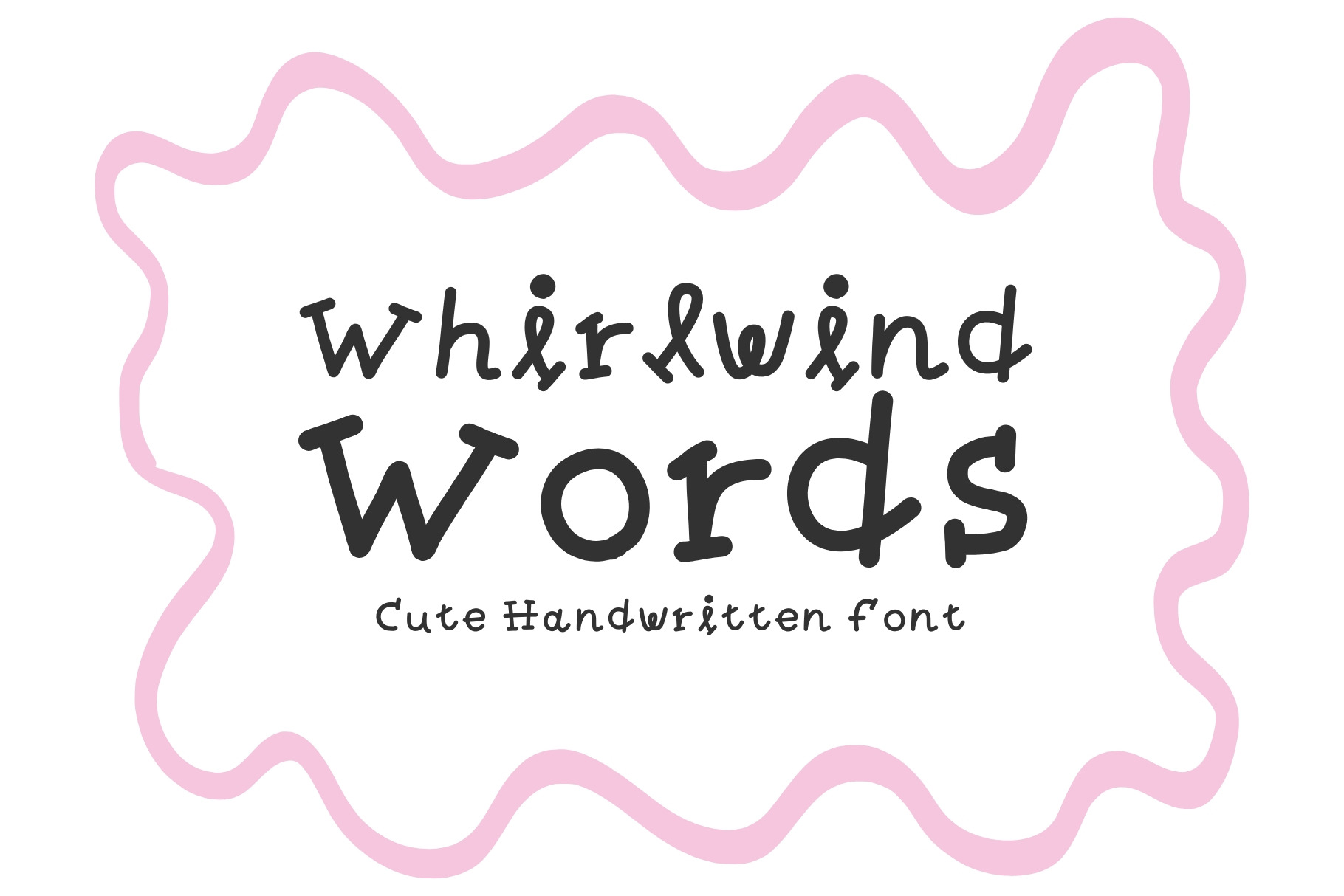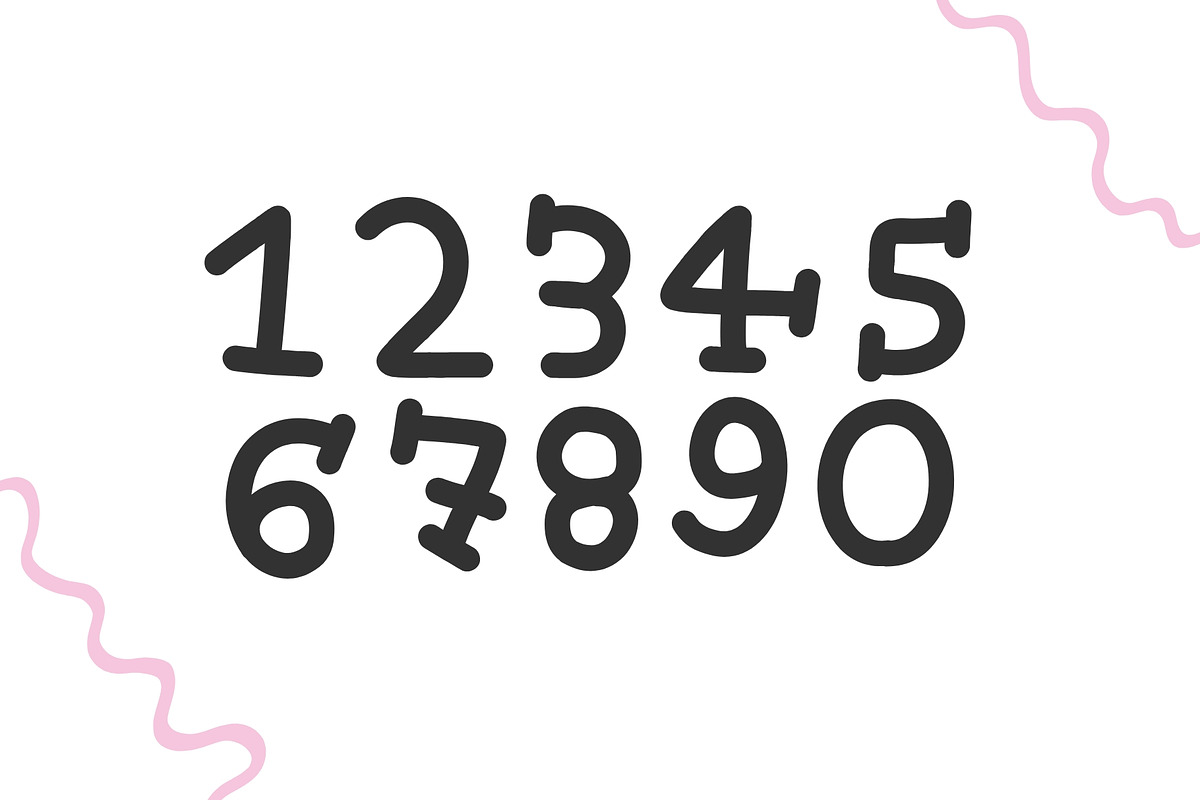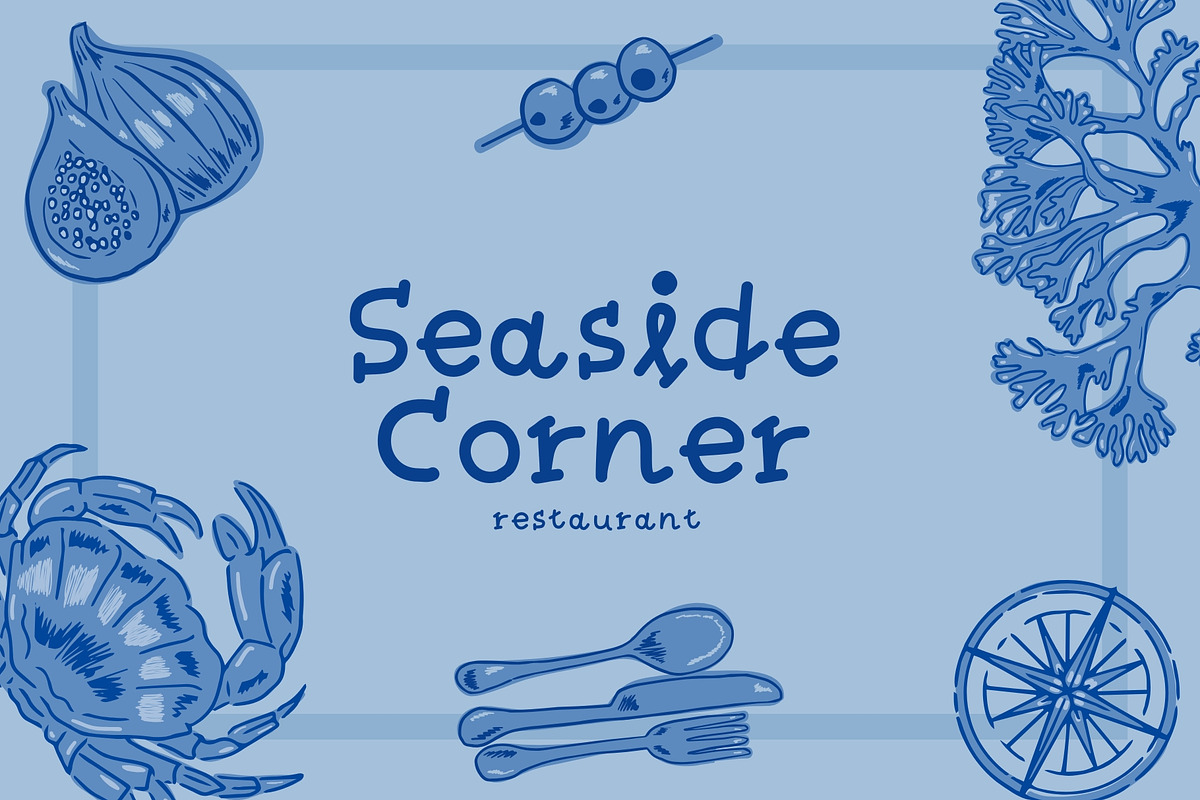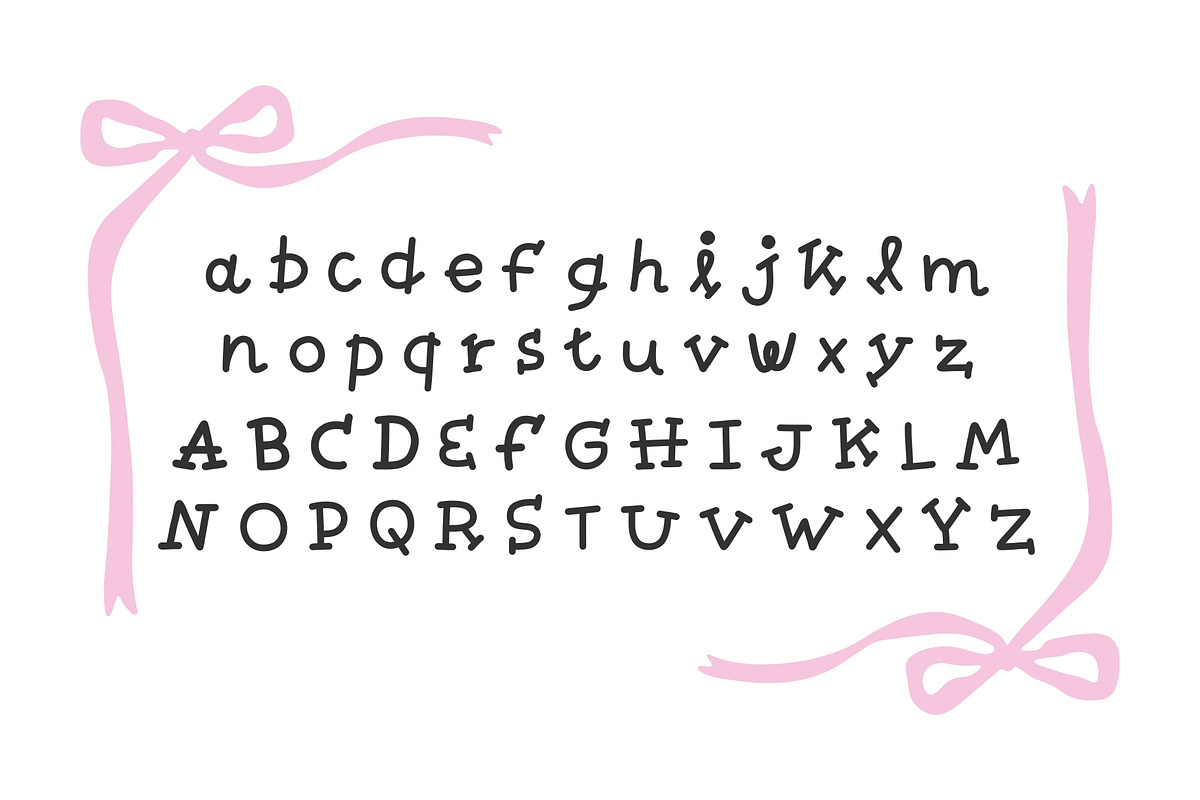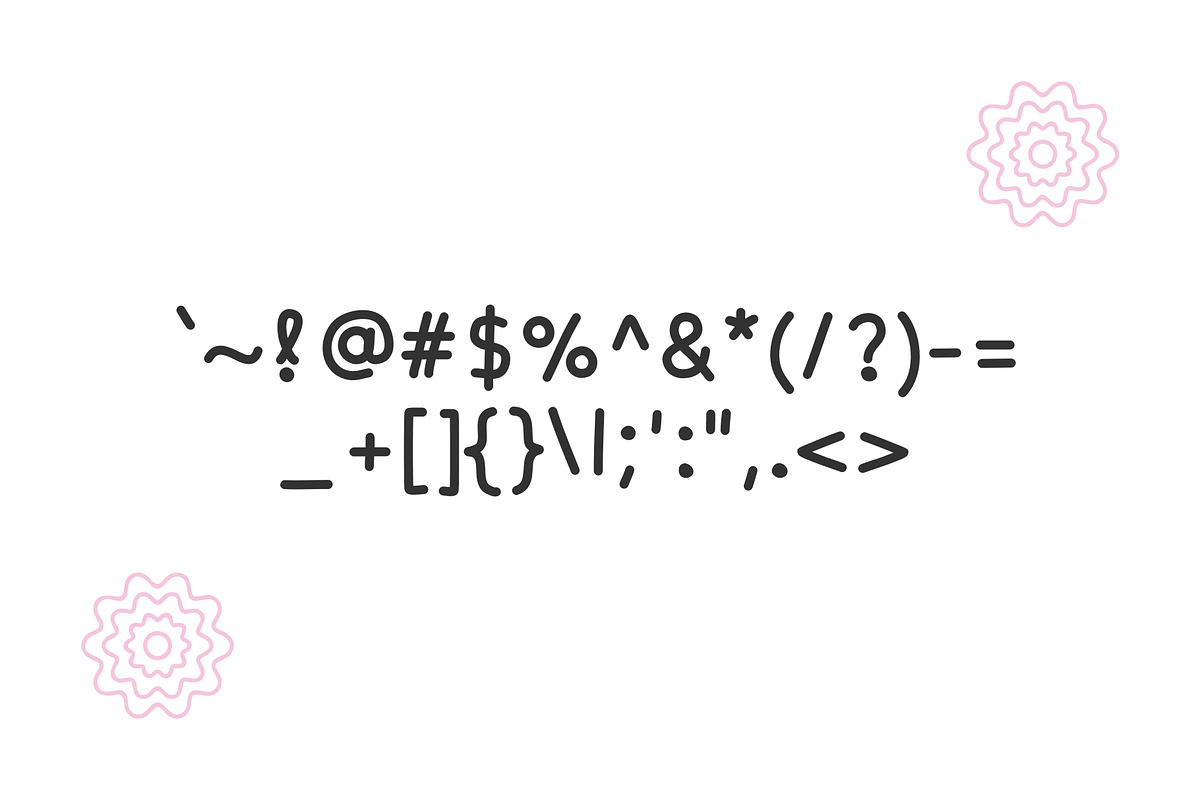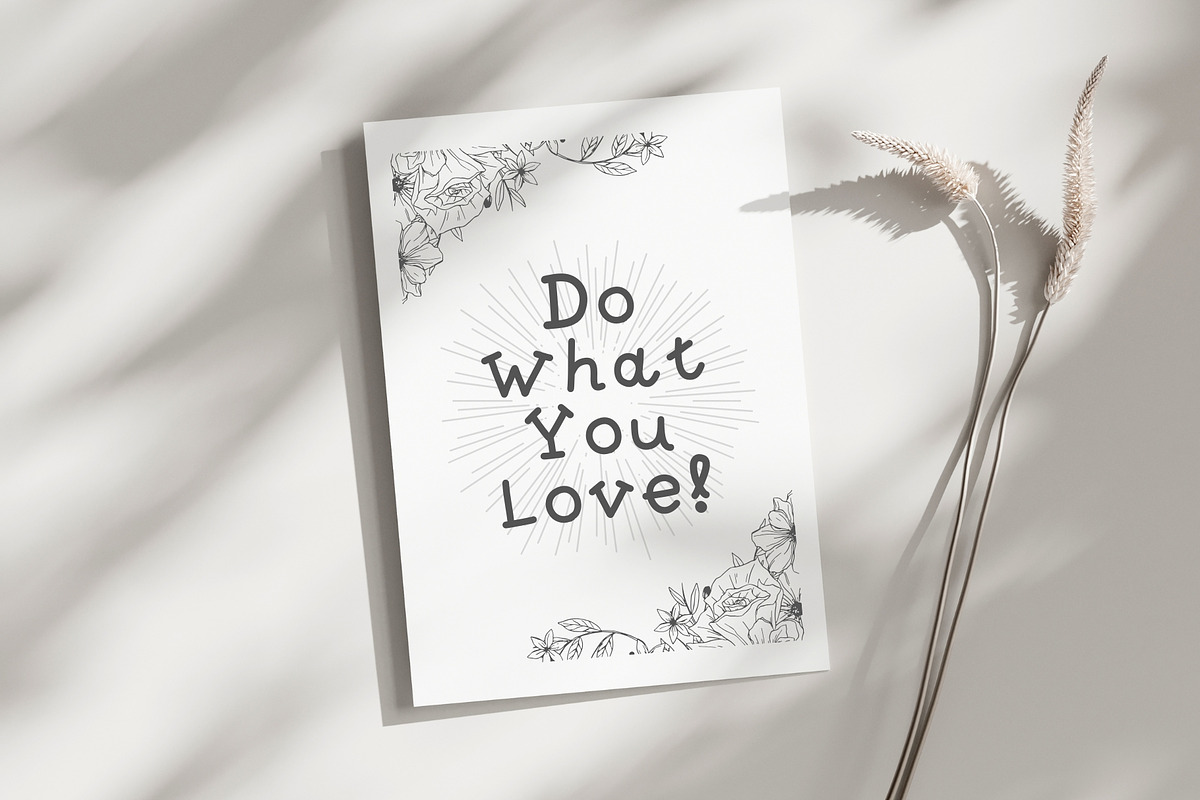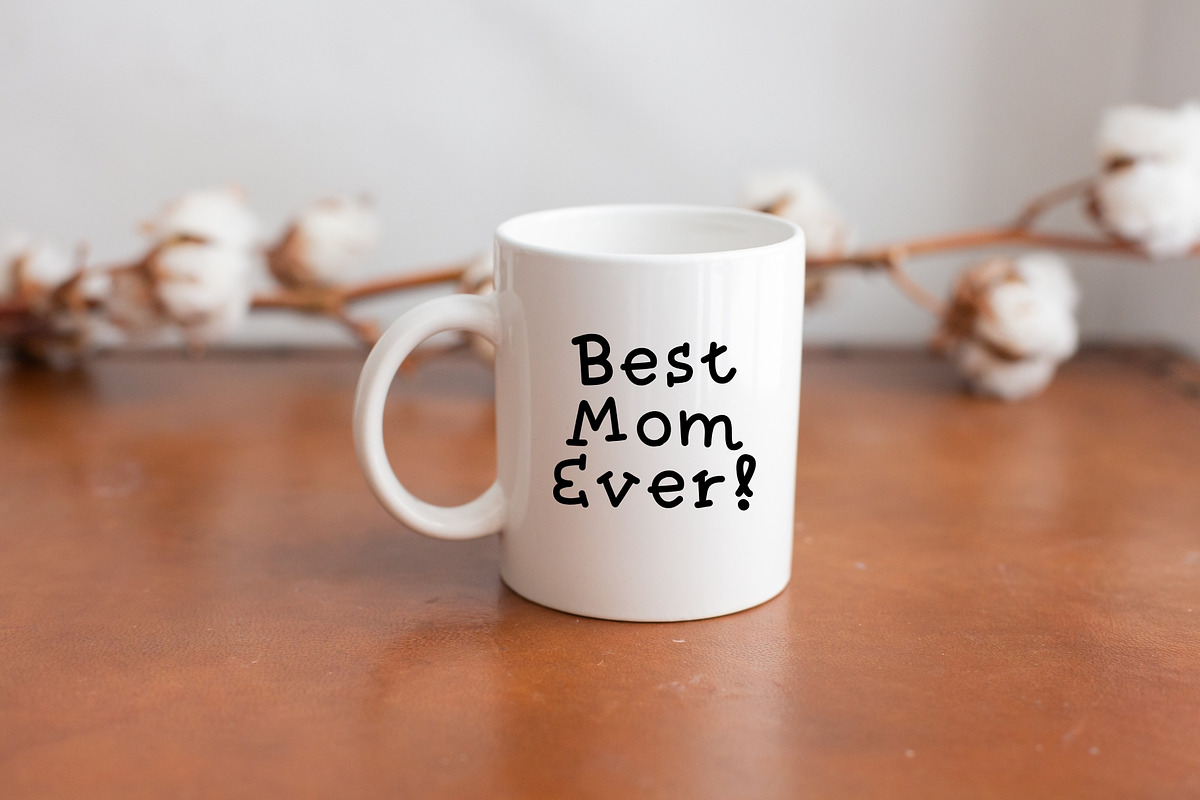
Whirlwind Words - Handwritten Font
Let your creativity take flight with Whirlwind Words, a charming handwritten serif that blends quirkiness with elegance. Each letter carries a delightful swirl of personality, making your designs feel warm, lively, and effortlessly stylish.
Whether you're crafting eye-catching branding, whimsical invitations, or heartfelt social media posts, Whirlwind Words adds a touch of handcrafted charm to every project. Its delicate serifs and organic flow strike the perfect balance between playful and refined, making it a must-have for designers who love authenticity with a hint of flair.
Let your words whirl with style—Whirlwind Words is ready to elevate your designs with its unique handwritten magic!